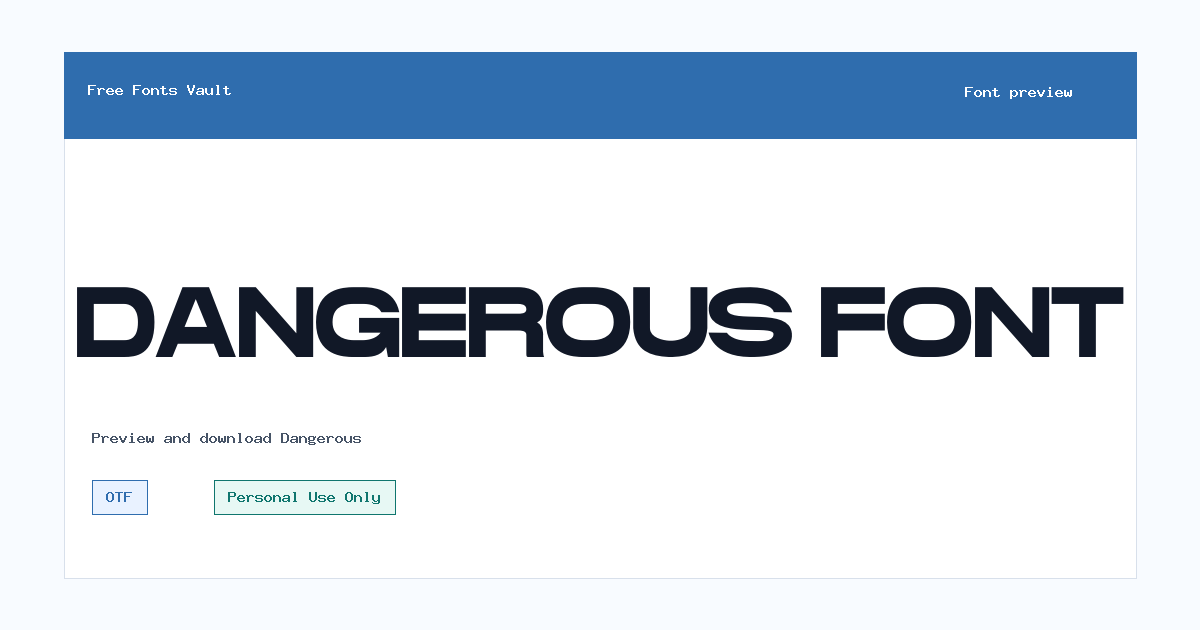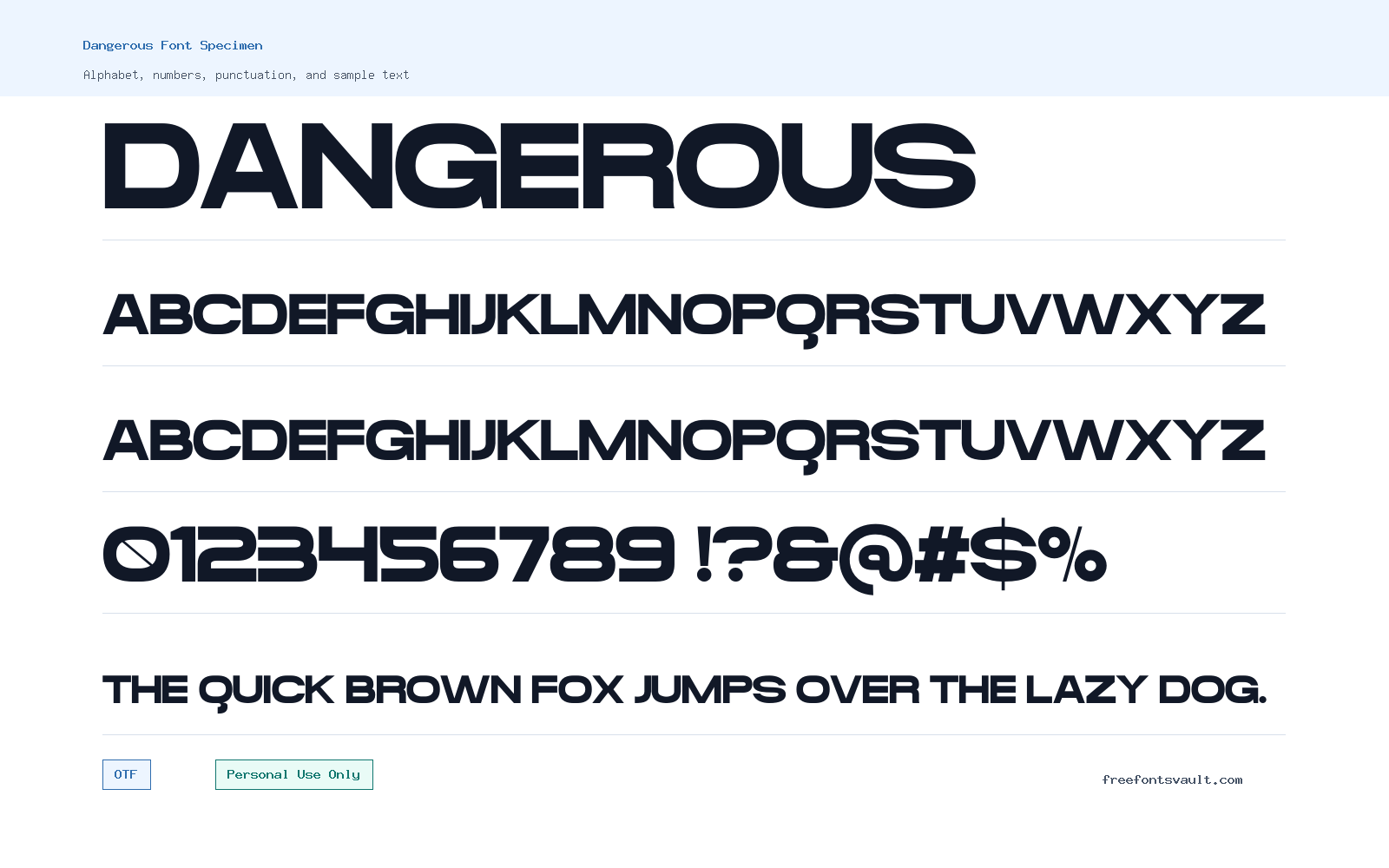
Dangerous
Dangerous Font
Dangerous font.
Dangerous is a display-focused sans serif font from Funtype Co. It is best approached as a strong headline typeface for personal projects where you want short words, names, or titles to feel firm, direct, and attention-grabbing.
About Dangerous Font
For practical design work, Dangerous is a better fit for short, high-impact text than for paragraphs. Use it for personal poster concepts, YouTube-style thumbnails, game-inspired graphics, social media artwork, mock logos for practice, apparel mockups, or event-title experiments. Keep the surrounding layout clean so the font can carry the main message without competing with too many effects. If you pair it with another typeface, choose a plain sans serif for descriptions, dates, buttons, or body text. That contrast helps Dangerous stay useful as the main display voice while the supporting font handles readability.
• Display-friendly sans serif family suited to short titles and headline text
• Personal poster titles, social graphics, thumbnails, and display lettering
• Short words, names, mock branding, and large preview text where impact matters
What type of font is Dangerous?
Dangerous is listed as a sans serif font family with a regular OTF variant. It is best used like a display font for short, visible text rather than long reading sections.
Who designed Dangerous?
The font is credited to Funtype Co., which is also listed as the foundry.
Where does Dangerous work best?
Try it in large titles, personal posters, mock branding, social media graphics, thumbnails, and short display lines. For body copy or detailed information, pair it with a cleaner reading font.